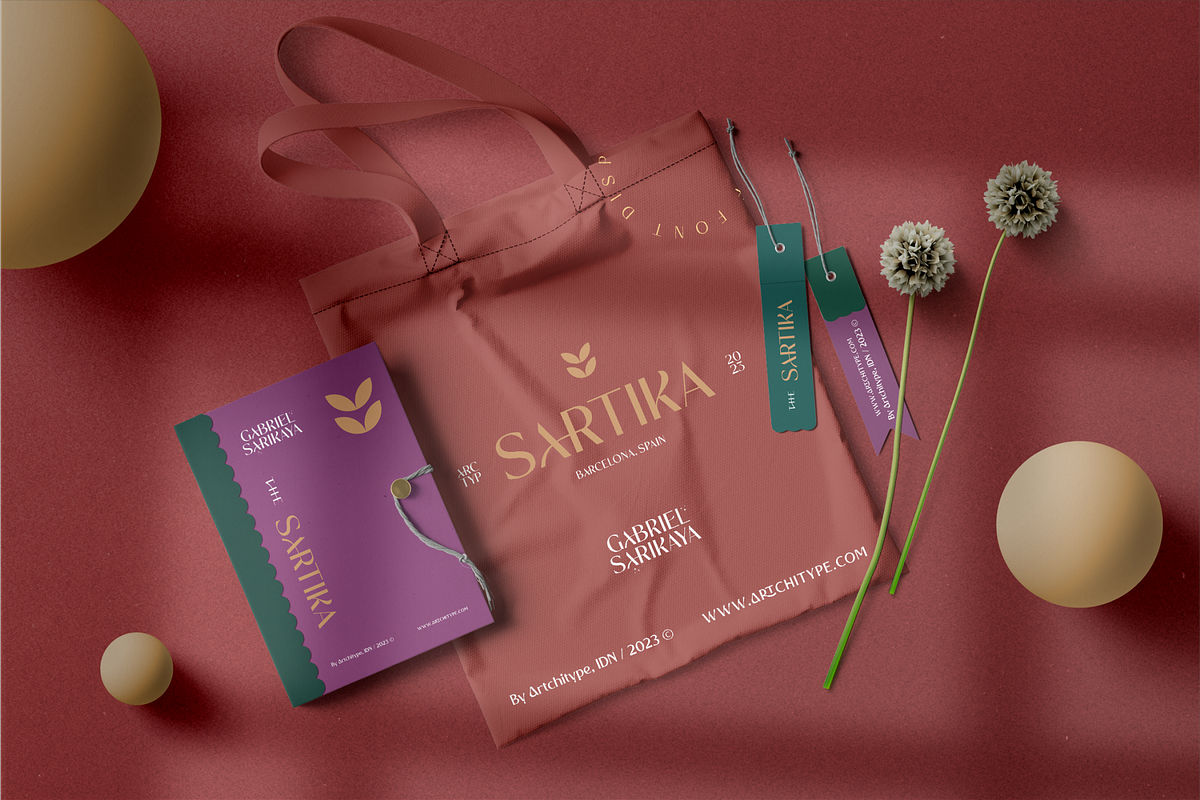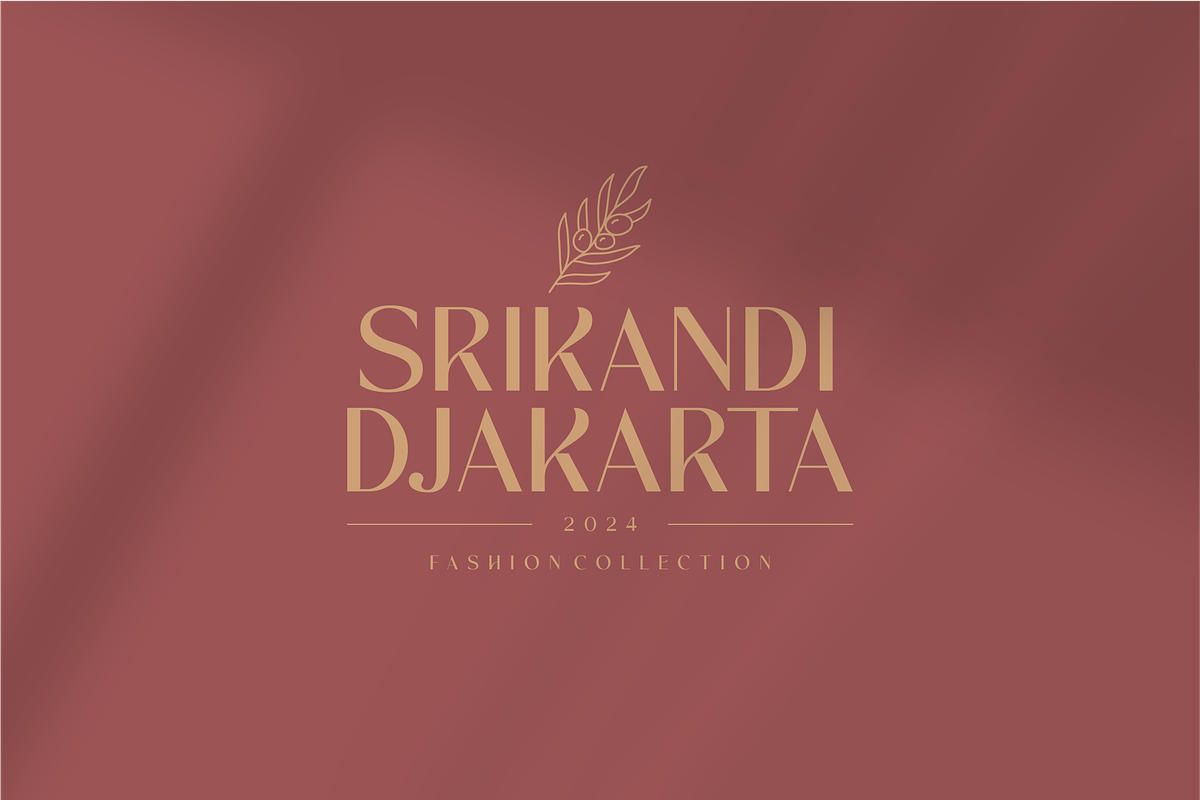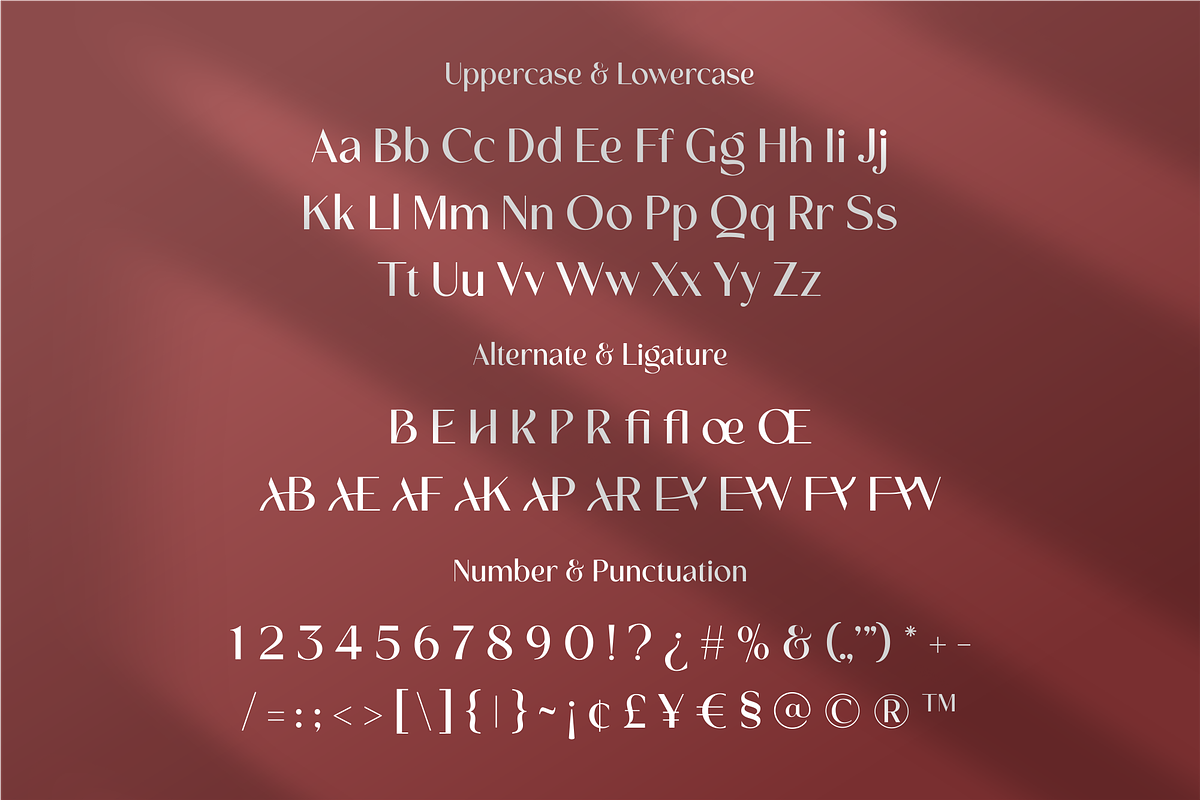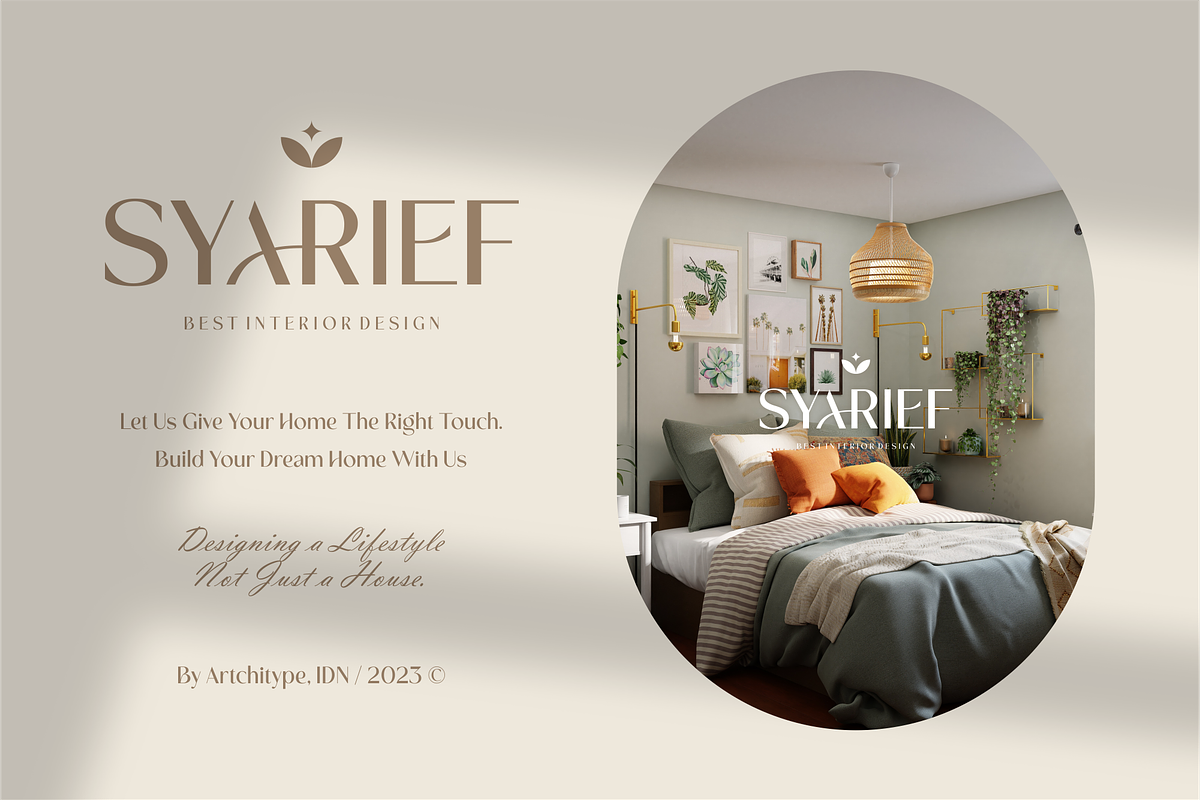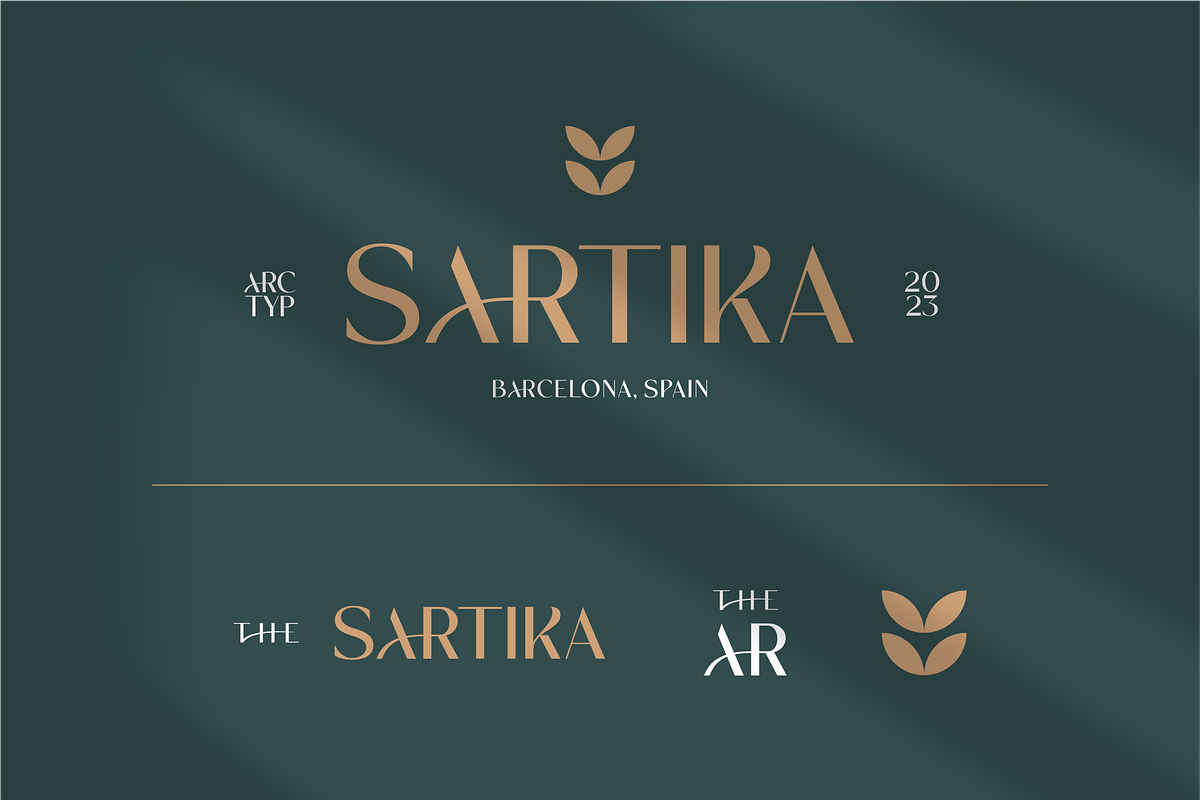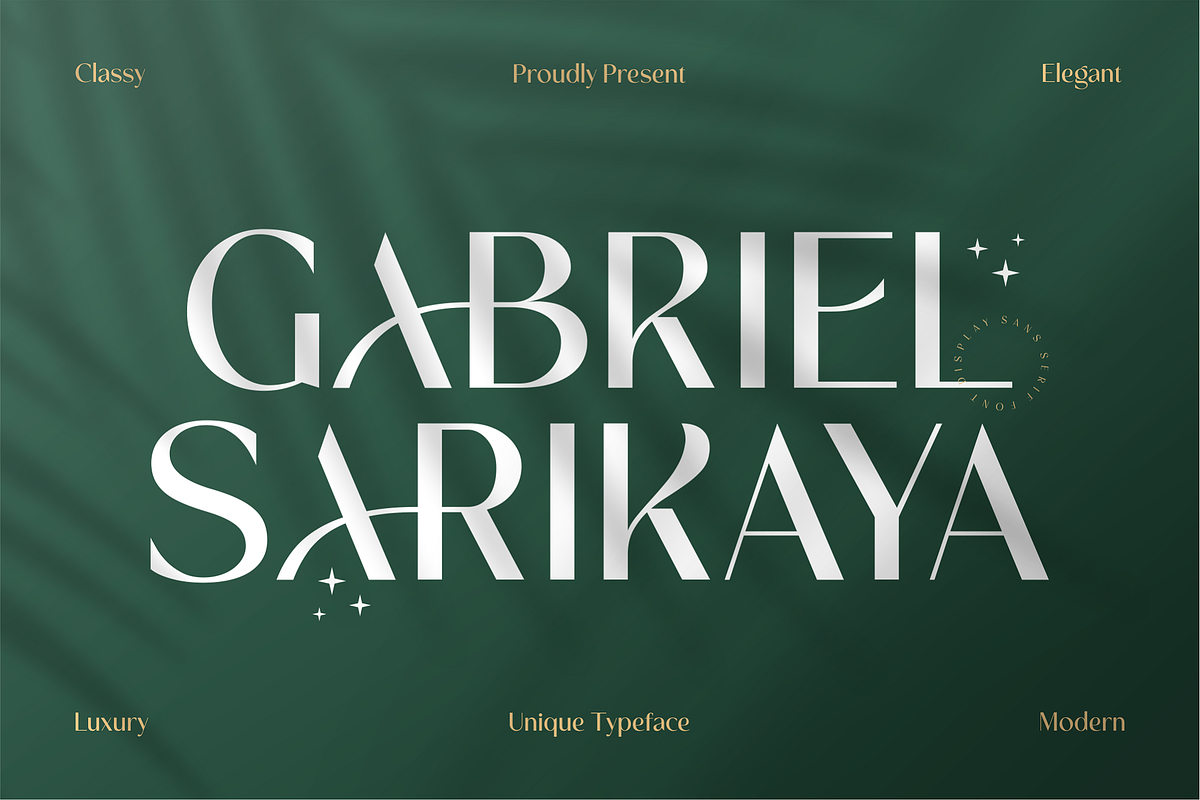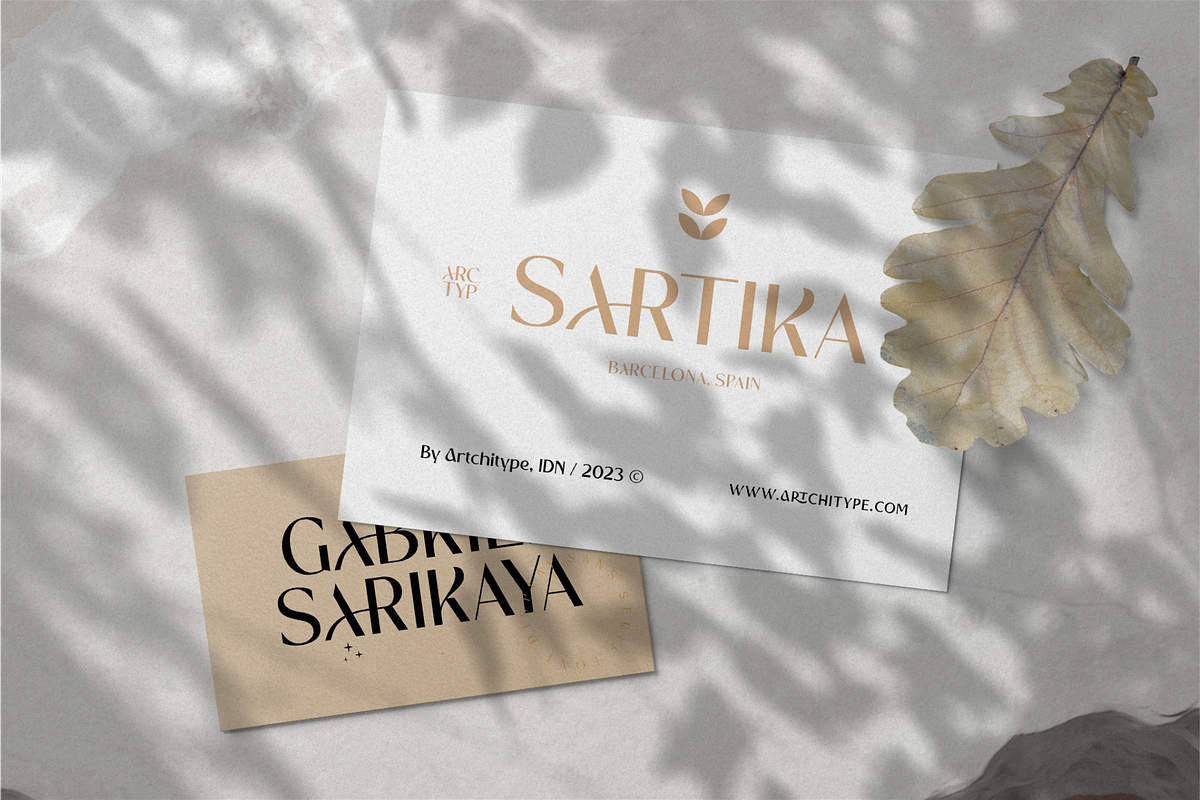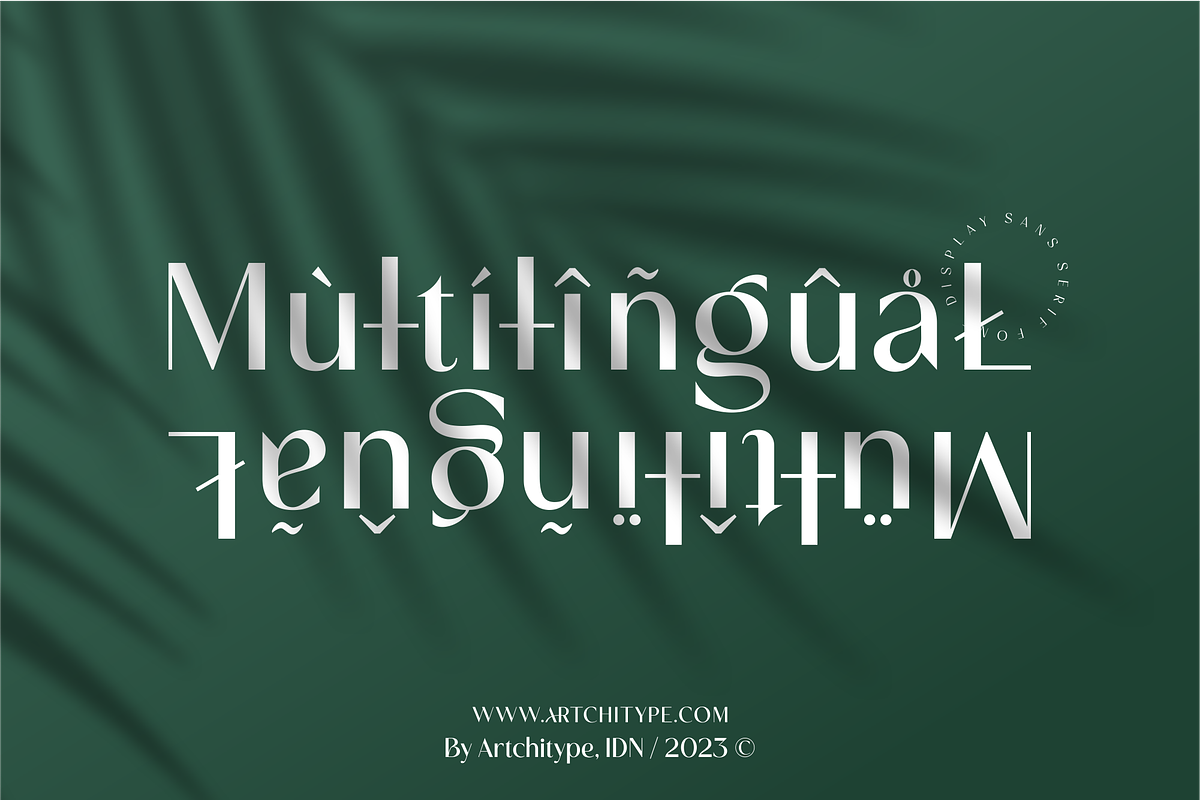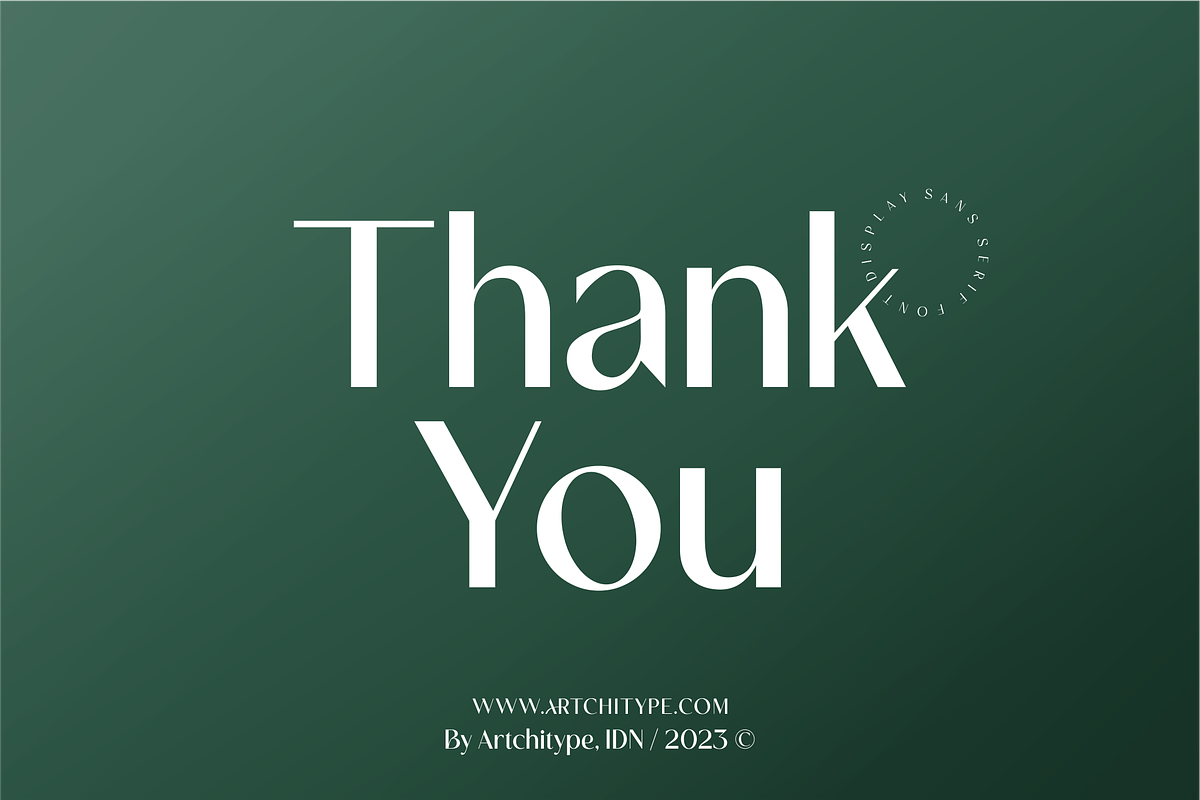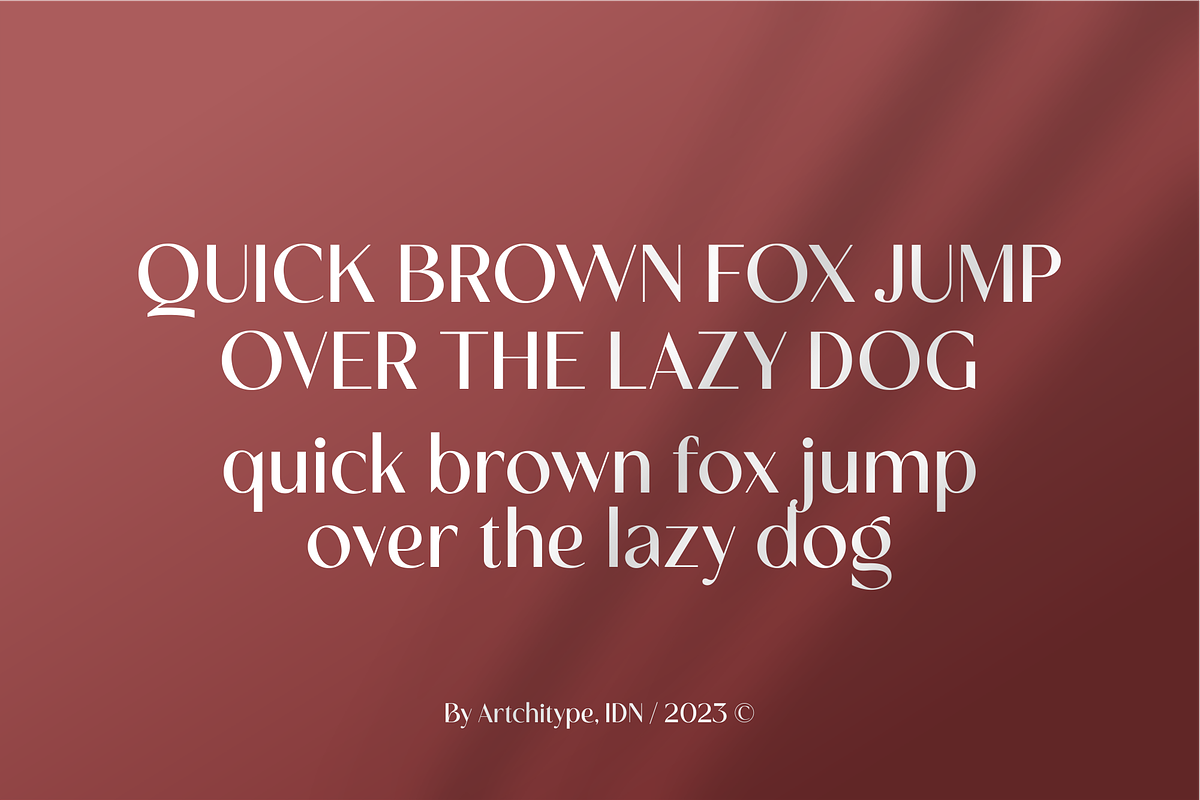
Gabriel Sarikaya - Unique Typeface
Gabriel Sarikaya is classy display sans serif font with 280+ characters. Includes uppercase, lowercase characters, multilingual, alternates and most common other characters.
Gabriel Sarikaya is perfect for logos, social media posts, product packaging, product designs, and other projects.